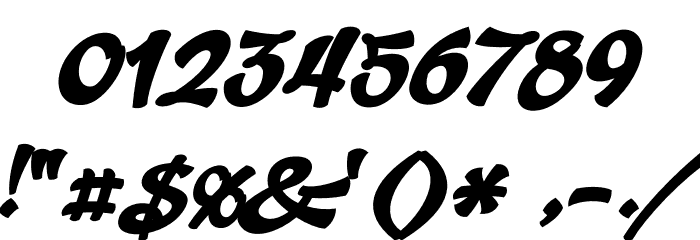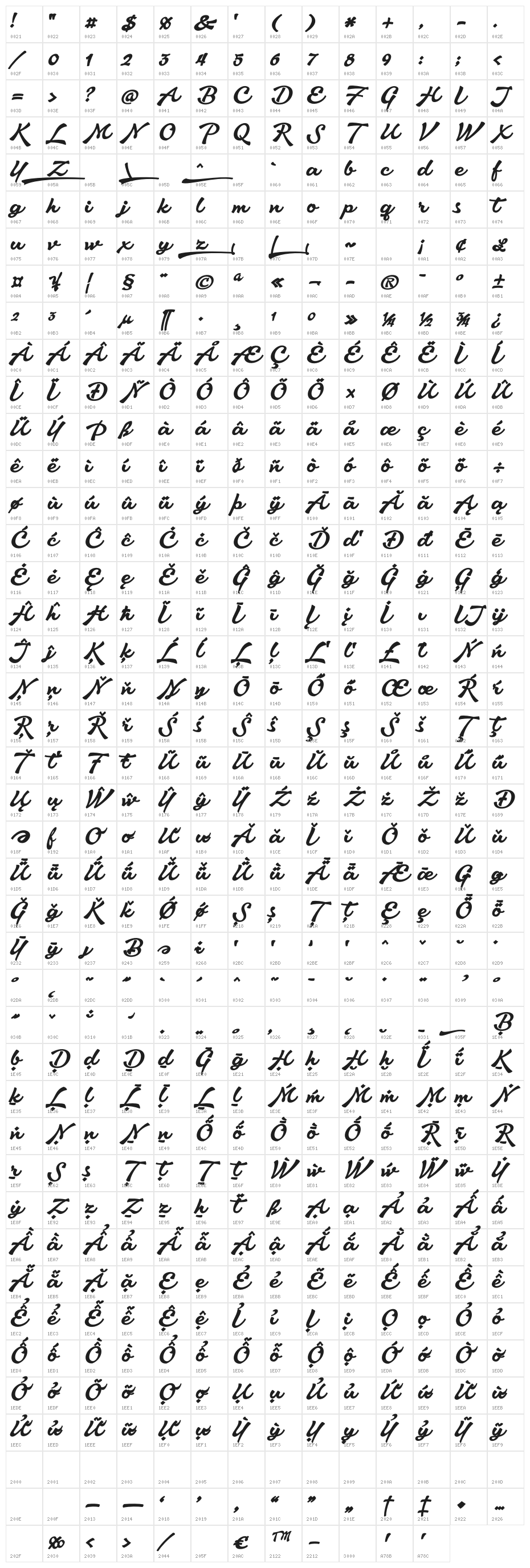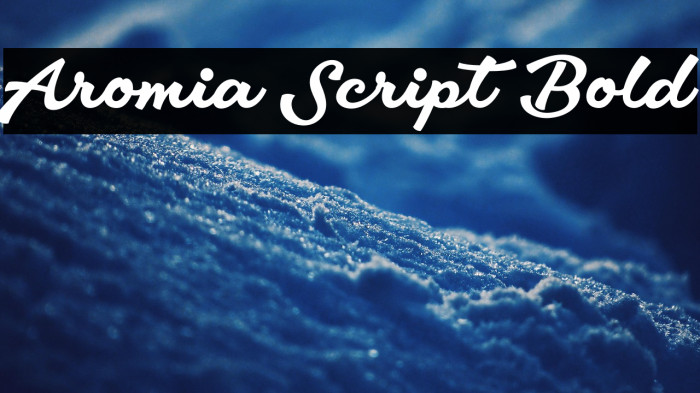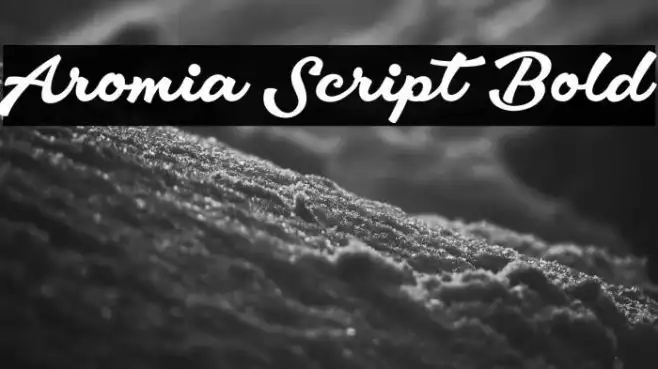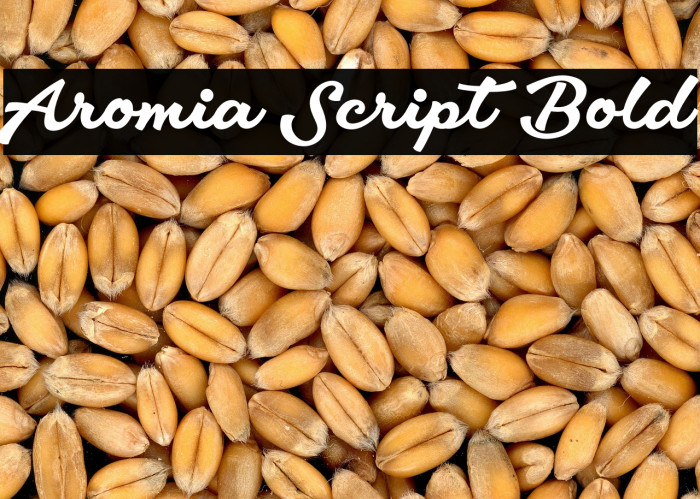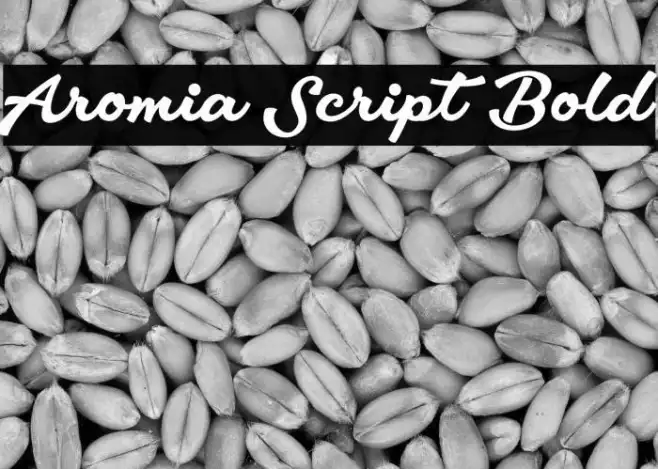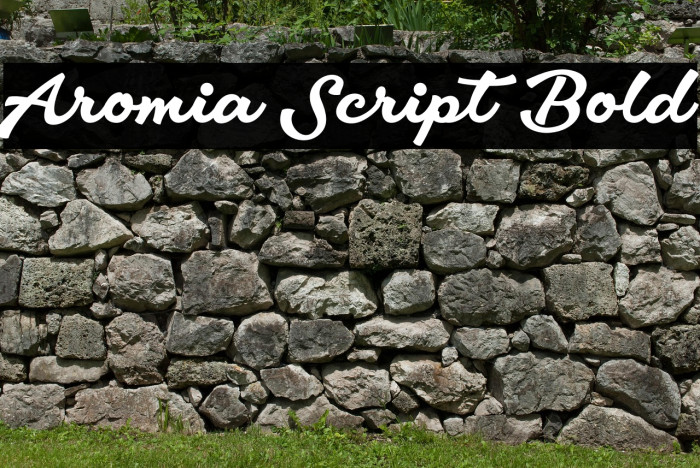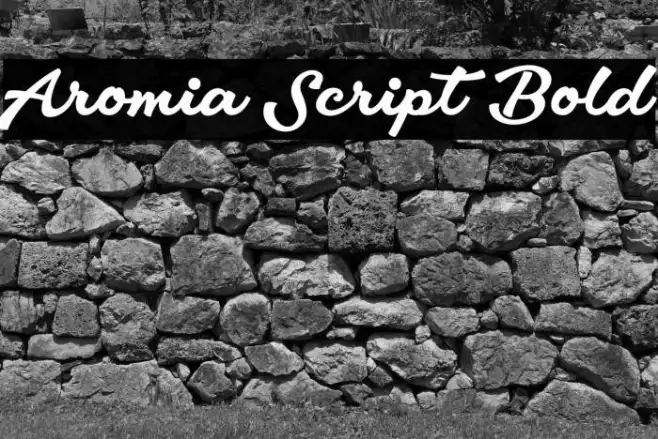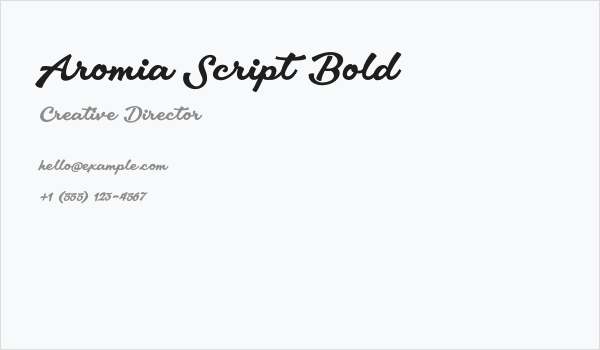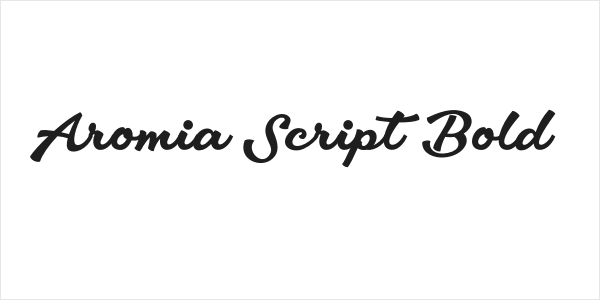
Aromia Script Bold Font
Aromia Script Bold Description
This font is a bold, expressive script with a flowing, cursive style that exudes elegance and dynamism. The letters are interconnected, creating a seamless and fluid appearance. The strokes are thick and consistent, providing a strong visual impact. The uppercase letters are slightly more ornate, while the lowercase letters maintain a smooth and cohesive look. The numerals and special characters are designed to match the overall style, ensuring uniformity across all text. This font is ideal for making a statement with its bold presence and artistic flair.
| Proposed Projects | Ideal for branding, invitations, greeting cards, and any project requiring a touch of elegance and personality. |